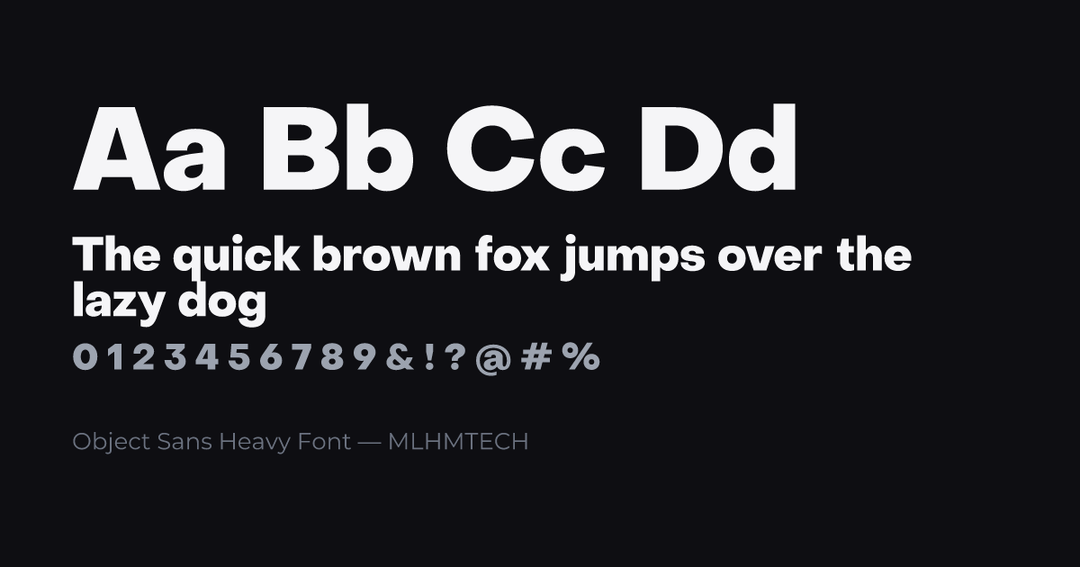
Object Sans Heavy Font
Object Sans Heavy is a bold, geometric sans-serif font that adds a modern and impactful touch to any design project.
Object Sans Heavy is a high-contrast, geometric sans-serif typeface with a sturdy and confident appearance. Its clean lines and uniform stroke widths make it ideal for headlines, titles, and branding materials that require a strong visual presence.
This font is part of the Object Sans family, known for its versatility and contemporary feel. The Heavy weight is particularly suited for large-scale applications such as posters, billboards, and packaging, where its boldness ensures readability and impact.